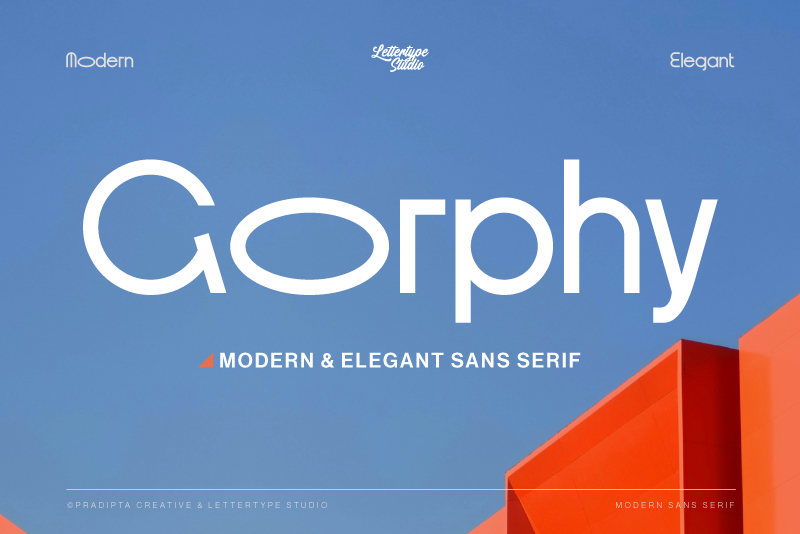
Gorphy Modern & Elegant Sans Serif Font
About Gorphy Modern & Elegant Sans Serif
**Gorphy** is a modern and elegant sans serif with extensive customization options for your unique and standout designs.
Gorphy sans serif with over 10+ unique alternate glyphs for endless customization and creativity to control your projects.
This font is perfect for photography, watermarks, social media posts, advertisements, logos and branding, invitations, product designs, labels, stationery, wedding designs, product packaging, subheaders or headers, special events, or anything else.